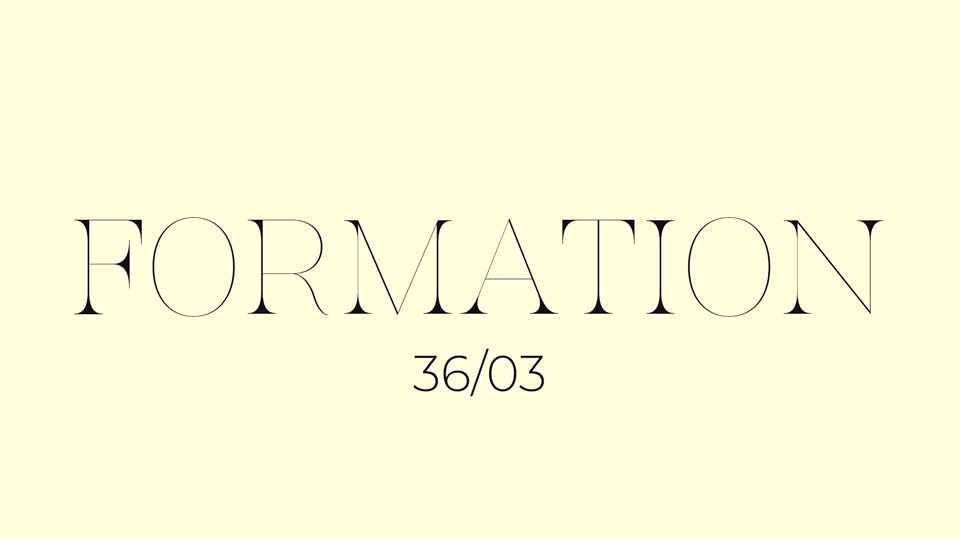
Download Formation font, a hairline didone typeface with heavy, spade-like bracketed serifs. Formation font is perfectly suitable for creating elegant, chic, lifestyle design such as logos, title, and magazine, and more.